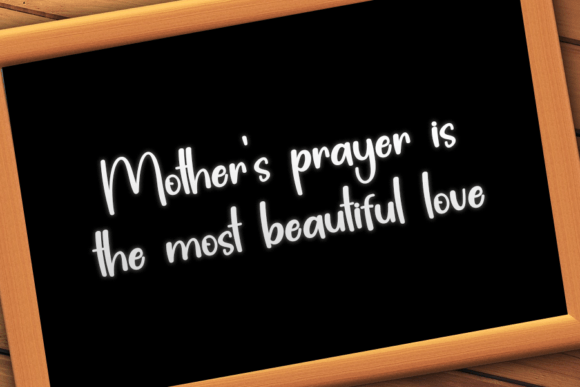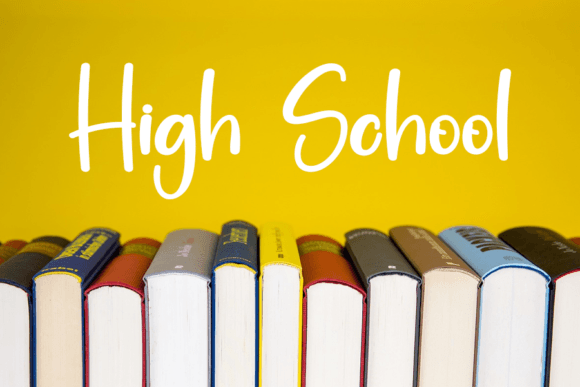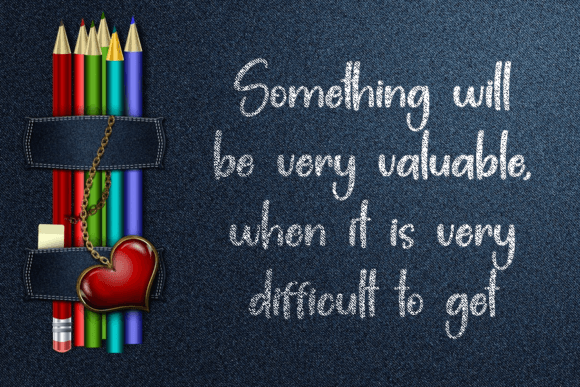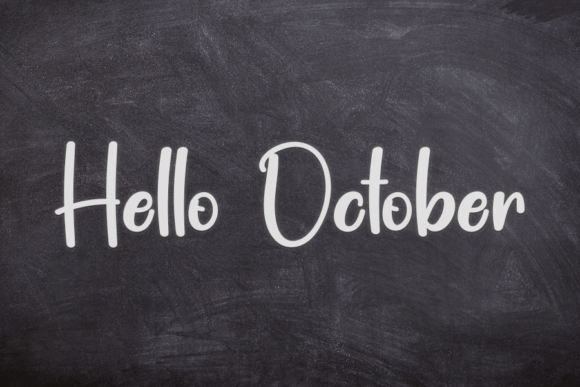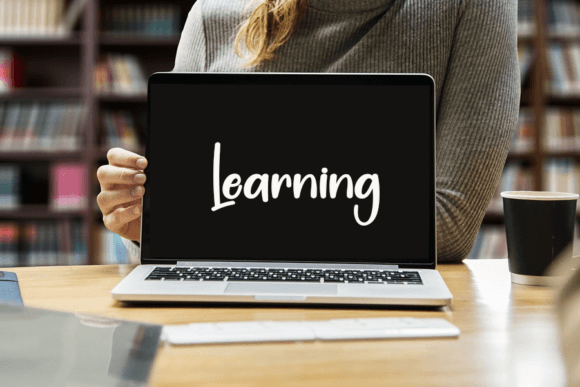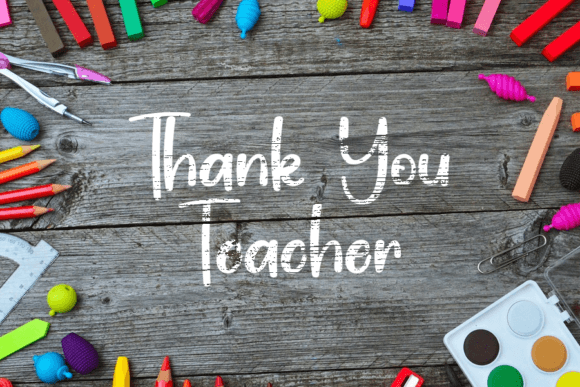
The Perfect Font for a Fresh Start
As a designer, there’s no feeling quite like the rush of creativity that comes with a blank canvas and a new project. You sit down at your desk, cup of coffee in hand, and start brainstorming ideas. Suddenly, a spark of inspiration hits – it’s time to break out the colorful markers and craft supplies, and let your imagination run wild. And that’s when you remember, you need a font that’s just as fun and playful as your ideas.
Enter the Back to School Font, a cool and modern handwritten font that’s perfect for adding a personal touch to your designs. Whether you’re working on a digital project, creating handmade crafts, or simply want to add some whimsy to your greeting cards, this font has the potential to become your new favorite go-to. And with its versatility, you’ll be reaching for it again and again – making it the perfect addition to your design toolkit.
Key Features of “Back to School Font”
- Unique Characteristics: Includes back-to-school themed icons, such as apples, pencils, and books, which can be used as ornaments or standalone graphics
- Font Weight: Offers a range of font weights, from Light to Bold, allowing for flexibility in design
Back to School Font Review
As a designer, I was excited to dive into the “Back to School Font” and see how it could spice up my next project. Here’s my honest review.
- ✨ The playful, handwritten feel is perfect for educational materials, party invitations, or any project that needs a fun, carefree vibe.
- ✨ The font is highly customizable, allowing for easy color adjustments and spacing tweaks.
- ✨ The font supports a wide range of languages, making it a great choice for projects targeting diverse audiences.
- ⚠️ The font’s whimsical nature can make it difficult to read at smaller font sizes, which may be a concern for projects requiring dense text.
- ⚠️ Some users may find the font’s irregularities and inconsistencies jarring, particularly in more formal or professional contexts.
- ⚠️ The font lacks support for some advanced typography features, such as ligatures and stylistic sets.
Overall, I’d say the “Back to School Font” is a solid choice for projects that require a fun, approachable feel. While it may not be suitable for every project, its versatility and customizability make it a great addition to any designer’s toolkit.
Tips for Getting the Most Out of “Back to School Font”
Use “Back to School Font” to add a playful and educational touch to your designs.
Combine it with other educational-themed graphics and fonts for a cohesive look.
Use “Back to School Font” for:
Education-related projects, such as lesson plans and presentations.
Back-to-school-themed designs, such as invitations and posters.
Academic and educational websites and blogs.
Alternatives to “Back to School Font” for Designers
Great Vibes is a beautiful, handwritten font that works well for invitations, quotes, and other creative projects. It’s perfect for designers who want to add a touch of elegance and sophistication to their designs.
Compared to Back to School Font, Great Vibes has a more refined and polished look, making it suitable for a wider range of projects. While Back to School Font is more playful and casual, Great Vibes is more formal and sophisticated.
Alex Brush is a elegant, brush script font that’s ideal for wedding invitations, stationery, and other high-end projects. It’s perfect for designers who want to add a touch of luxury and sophistication to their designs.
Compared to Back to School Font, Alex Brush has a more refined and polished look, making it suitable for high-end projects. While Back to School Font is more playful and casual, Alex Brush is more formal and elegant.